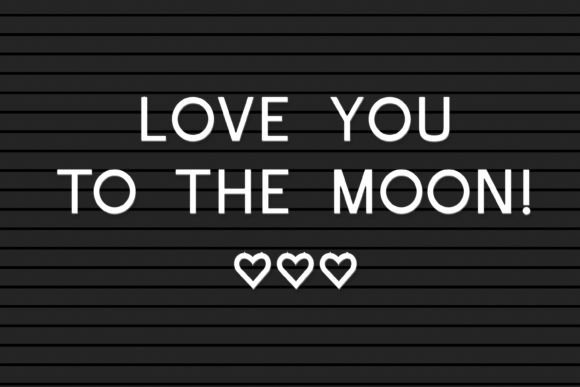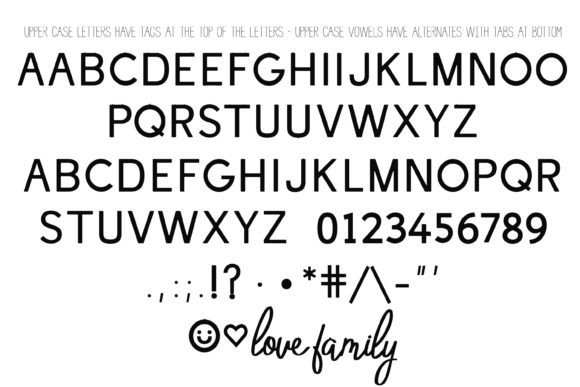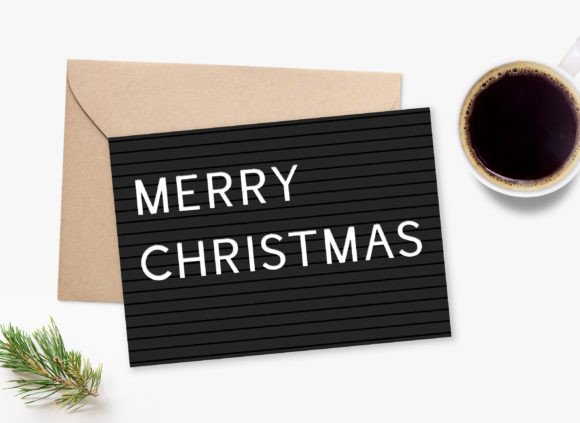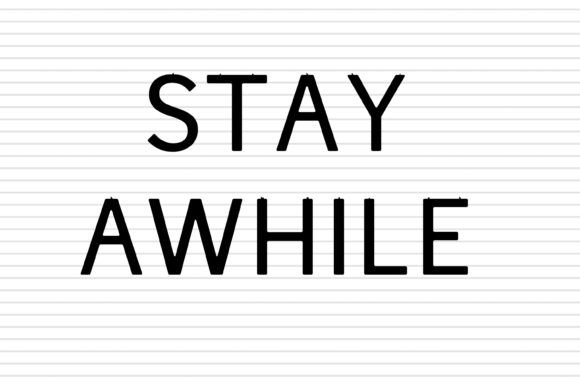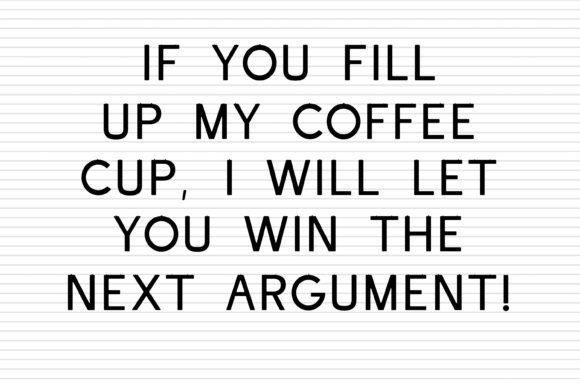
Introduction to Letterboard Font
Letterboard is a clean, easy-to-read font with all capital letters.
It has a simple, straight design without any extra decorations This makes it perfect for clear and straightforward messages.
Key Features of Letterboard Font
Why Choose Letterboard Font?
Letterboard Font offers exceptional quality and versatility, making it a valuable addition to your design toolkit. Whether you’re creating for personal projects or commercial use, Letterboard Font delivers professional results.